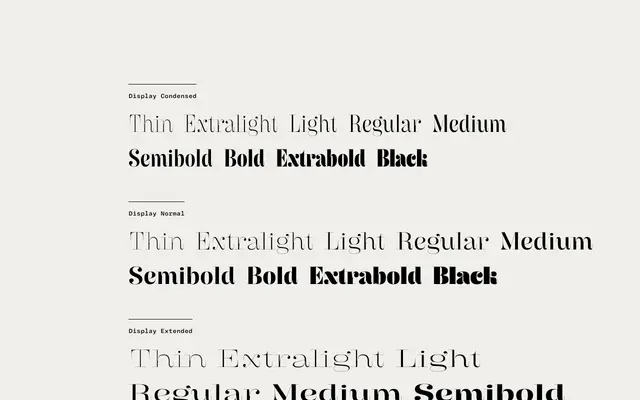
A display sans from Rosetta with three widths, nine weights and expressive detailing including ball terminals, outstrokes and uppercase swashes across a variable font axis.
Spanning condensed, normal and extended widths at nine weights from Thin to Black, Butik is built for large-scale typesetting where personality is required. Distinctive ball terminals and outstrokes give individual letters a spirited quality, supported by uppercase and lowercase swash alternates, discretionary ligatures and hairline diacritics and punctuation. All three width families are available as variable fonts, giving designers continuous control over weight within a single file.
Butik is a display-oriented sans with expressive ball terminals, outstrokes, swashes and hairline diacritics, designed explicitly for large-size headline and decorative use across three width variants.